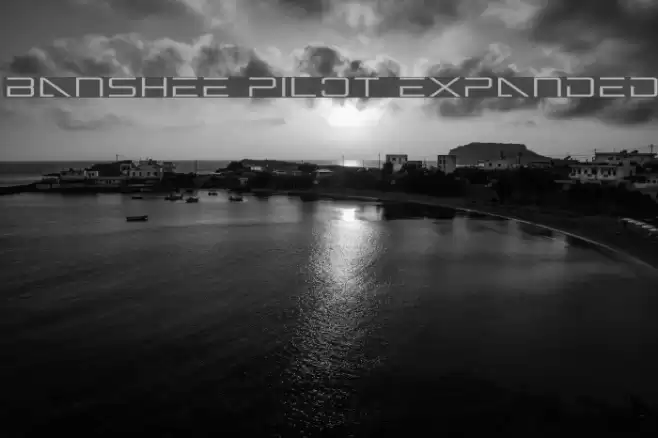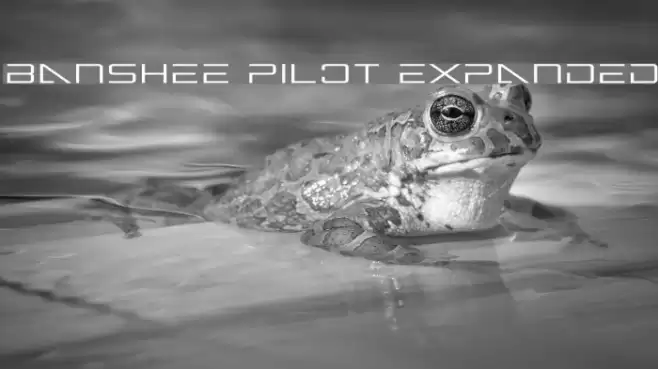
Banshee Pilot Expanded Font
Banshee Pilot Expanded Description
This font exhibits a futuristic and geometric design, characterized by its clean lines and angular forms. The uppercase letters are distinct with sharp edges and a uniform stroke width, creating a sense of precision and modernity. The lowercase letters maintain the same geometric style, ensuring consistency across the typeface. Numbers and special characters are designed to match the overall aesthetic, with a focus on readability and style. The font's expanded width gives it a spacious feel, making it suitable for various design applications where a modern and technical look is desired.
A futuristic, geometric font with clean lines and expanded width from Sci-fi fonts.
- Proposed Projects: Ideal for technology branding, sci-fi posters, modern web design, and innovative product packaging.
- Overall Style: Futuristic